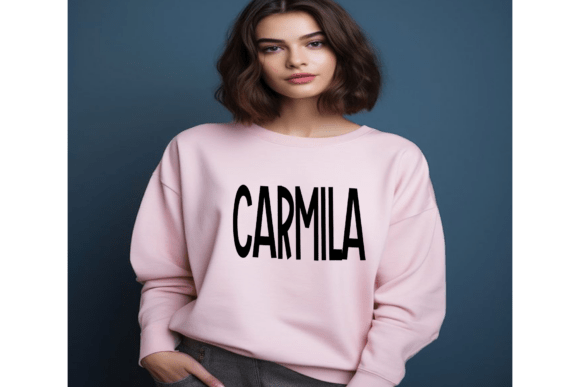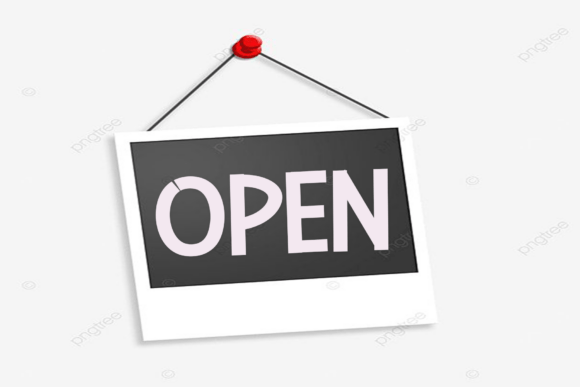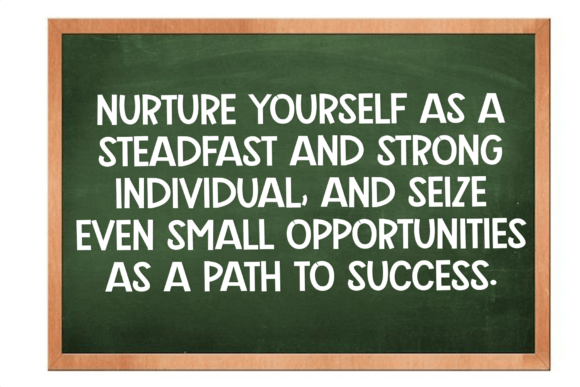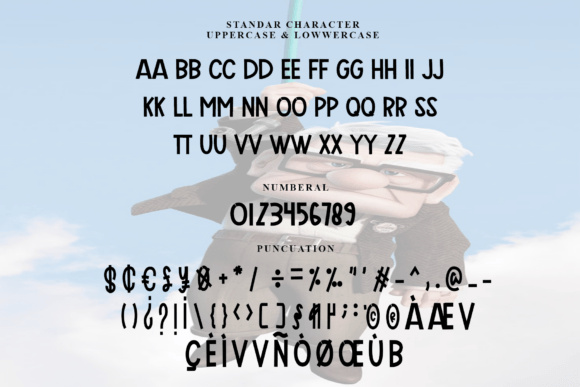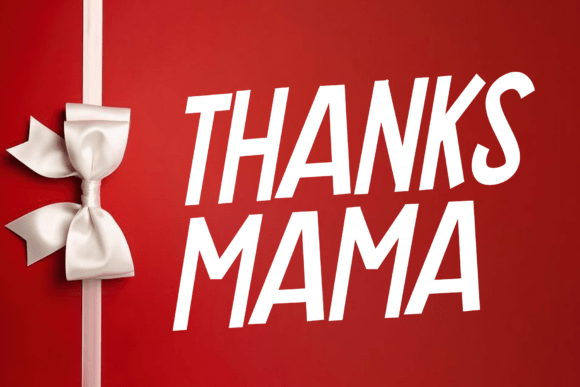
Discover the Charm of Damon Font: A Perfect Blend of Modern Simplicity and Playfulness
In the world of typography, fonts play a crucial role in conveying the tone and personality of a design. For designers and crafters looking for a font that combines modern simplicity with a playful, approachable vibe, Damon Font is an excellent choice. This casual display font has been gaining popularity for its unique ability to blend clean shapes, soft edges, and well-balanced letterforms, making it perfect for a wide range of design projects.
What Makes Damon Font Stand Out?
Damon Font is characterized by its clean and simple design, making it an ideal choice for designers who want to add a touch of modernity to their work. The font features soft edges that give it a friendly and approachable feel, setting it apart from more traditional fonts. Its well-balanced letterforms ensure that the text is not only visually appealing but also highly readable, making it suitable for various applications.
Key Features of Damon Font
- Clean Shapes: Damon Font boasts clean and straightforward shapes that give it a modern and uncluttered look.
- Soft Edges: The soft edges of the font add a touch of warmth and friendliness, making it perfect for designs that require a more approachable tone.
- Well-Balanced Letterforms: Each letterform is carefully crafted to ensure balance and harmony, contributing to the font’s overall readability and aesthetic appeal.
- Versatility: Damon Font is highly versatile and can be used for a variety of design projects, including posters, branding, packaging, and social media graphics.
Ideal Applications for Damon Font
Damon Font’s unique characteristics make it suitable for a wide range of design applications. Here are some of the ideal uses for this font:
- Posters: Add a fresh and friendly touch to your posters with Damon Font. Its eye-catching appeal and readability make it perfect for headlines and titles.
- Branding: Use Damon Font to give your brand a modern and approachable personality. It’s ideal for logos, business cards, and other branding materials.
- Packaging: Make your product packaging stand out with Damon Font. Its clean and playful design can help your product catch the eye of potential customers.
- Social Media Graphics: Damon Font is perfect for social media graphics, including Facebook posts, Instagram stories, and Twitter headers. Its friendly vibe can help increase engagement and make your content more shareable.
Why Choose Damon Font?
With so many fonts available, why should you choose Damon Font for your next design project? Here are a few compelling reasons:
- Readability: Damon Font delivers excellent readability, making it suitable for both short and long texts.
- Personality: The font’s playful and friendly vibe can help give your design a unique personality that stands out from the crowd.
- Versatility: Whether you’re working on a large-scale project or a small design, Damon Font can adapt to various design needs and styles.
Damon Font is a versatile and stylish font that can add a fresh and friendly touch to any design project. Its unique blend of modern simplicity and playful charm makes it an excellent choice for designers and crafters looking to create visually appealing and engaging designs. With its clean shapes, soft edges, and well-balanced letterforms, Damon Font is sure to become a go-to font for various design applications.
Whether you’re designing posters, branding materials, packaging, or social media graphics, Damon Font is an excellent choice. Its readability, personality, and versatility make it a valuable addition to any designer’s toolkit. So why not give Damon Font a try and see how it can elevate your designs?